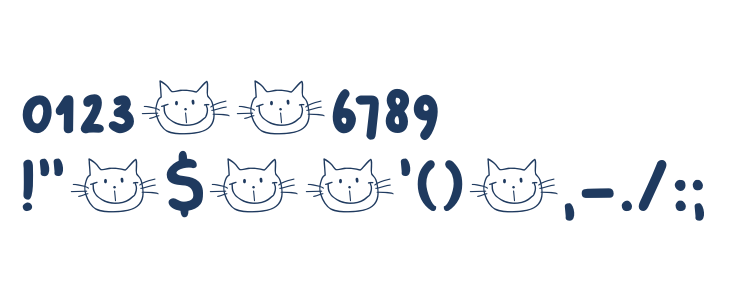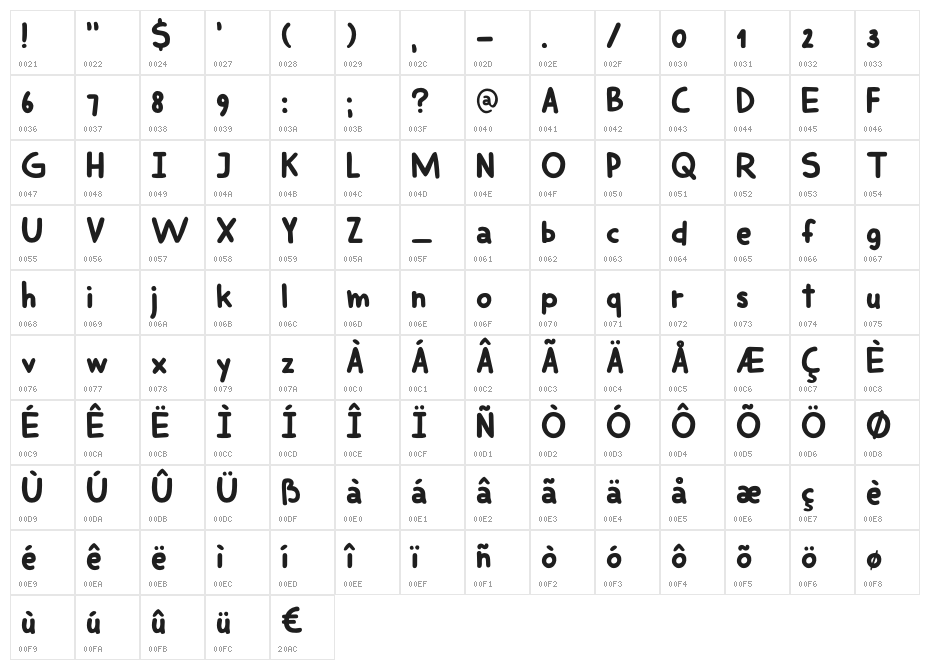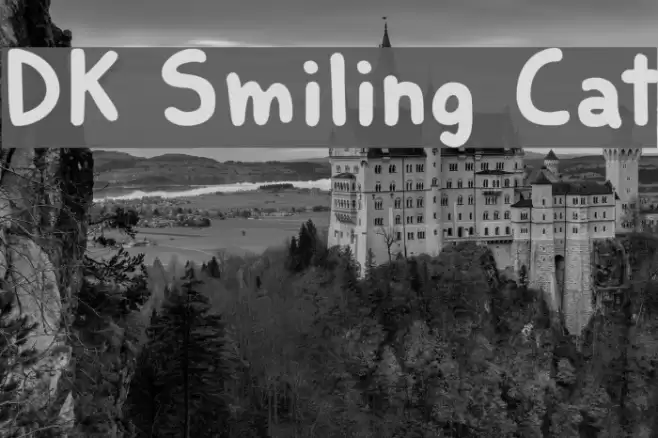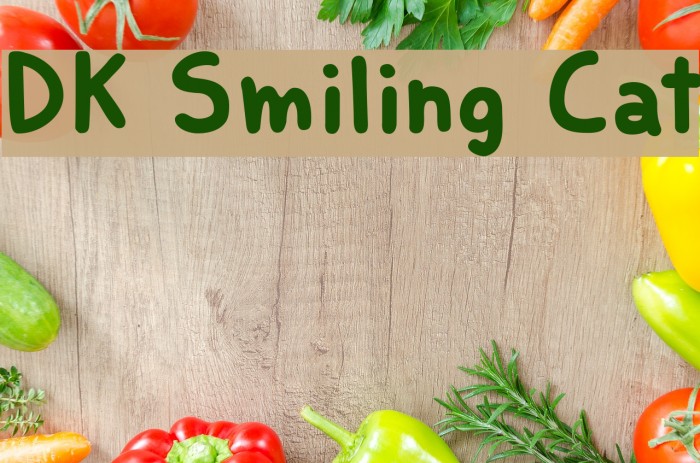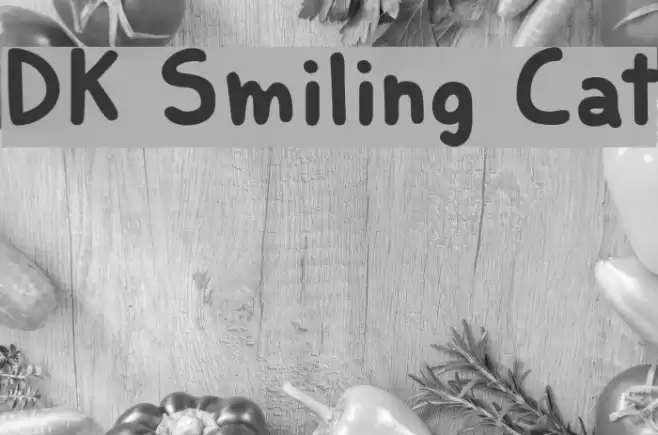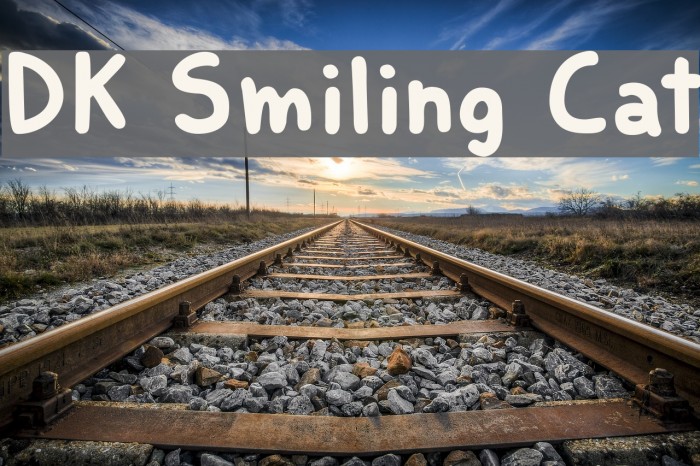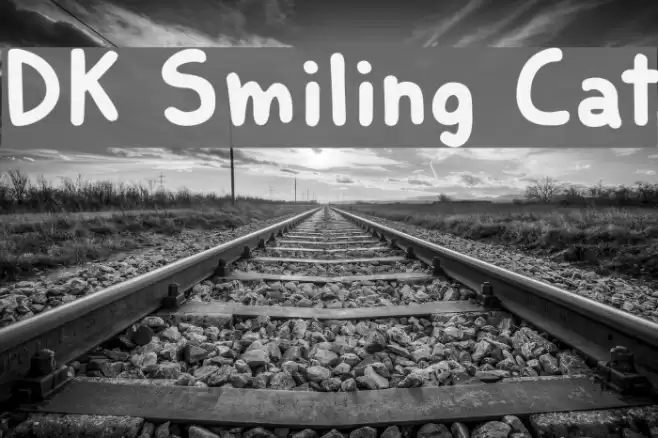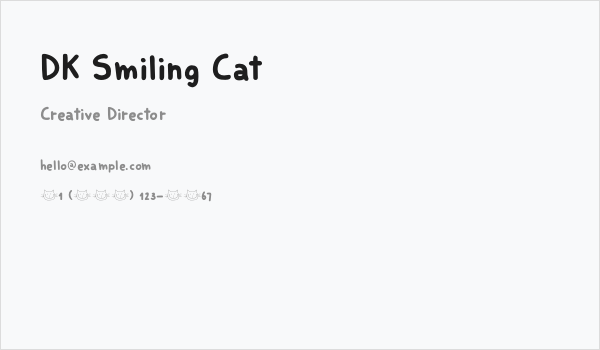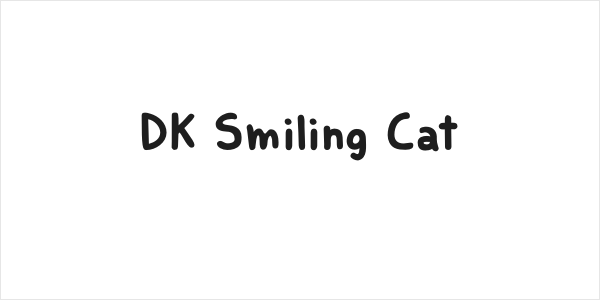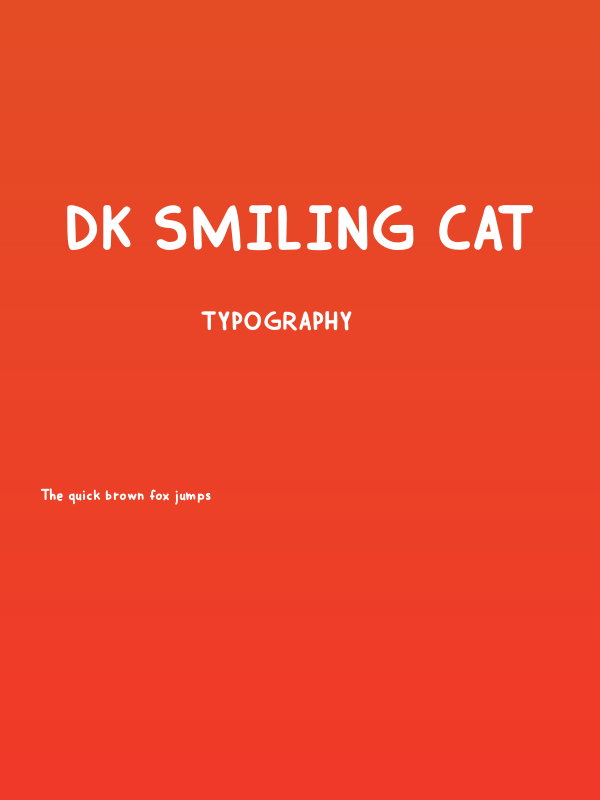
DK Smiling Cat Font
DK Smiling Cat Description
This playful and whimsical font features rounded, bold characters with a friendly and approachable style. The letters are slightly irregular, adding a hand-drawn feel that enhances its charm. The inclusion of smiling cat faces as special characters adds a unique and fun element, making it perfect for projects that require a touch of humor and creativity. The font maintains a consistent weight throughout, with medium contrast in stroke thickness. Its overall appearance is casual and inviting, suitable for a variety of informal applications.